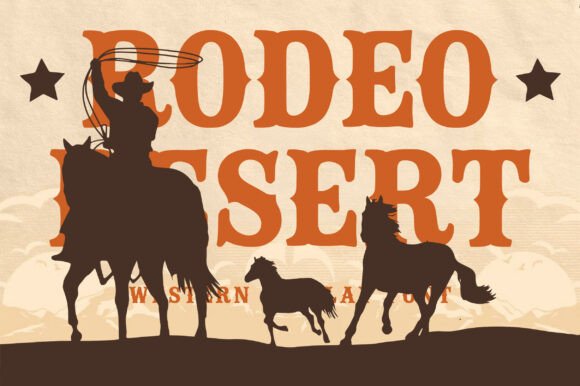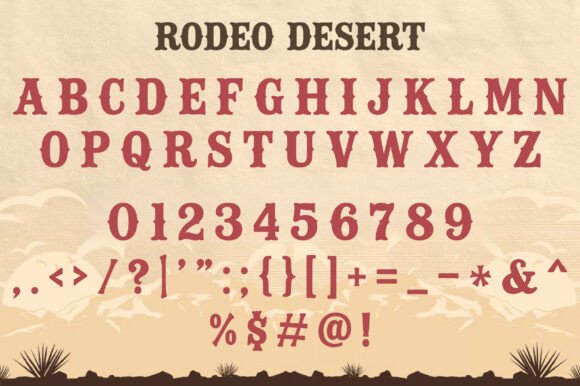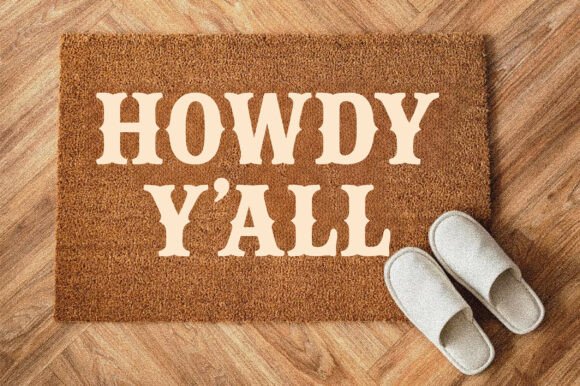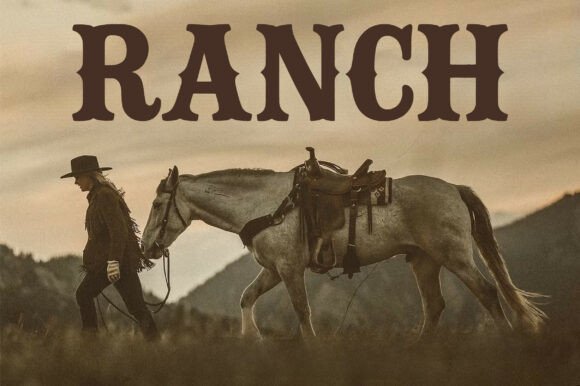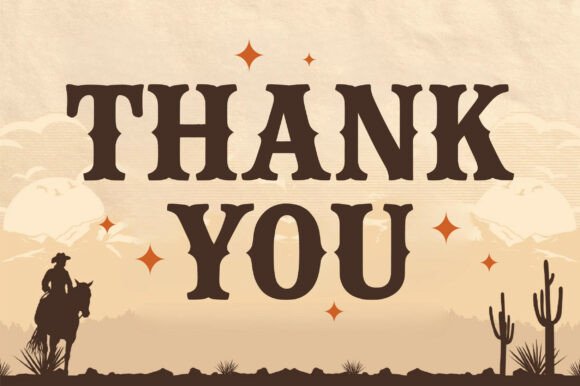
Introduction to Rodeo Desert Font
Rodeo Desert is a bold western display font inspired by dusty desert landscapes, cowboy culture, and rustic rodeo aesthetics.
Its strong serif styling and rugged curves make it perfect for themed projects like apparel prints, signage, branding, invitations, doormats, posters, and more Whether youโre creating country-style designs, farm projects, or rodeo graphics, this font adds authentic western character and a vintage wild-west charm to your work.
Key Features of Rodeo Desert Font